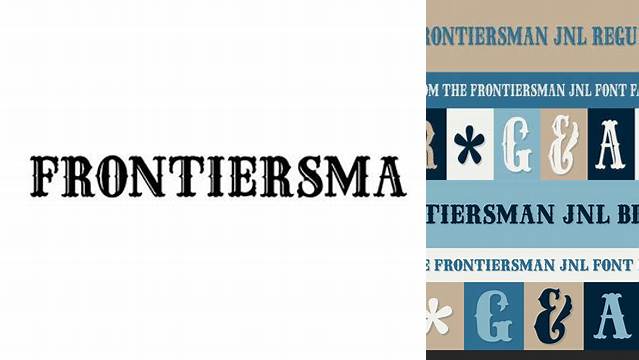
Alright, folks! Let's dive into the world of typography and get our hands on a fantastic font: the Frontiersman Font. This article is your ultimate guide to snagging a frontiersman font free download, plus a deep dive into what makes this font so awesome. We'll explore its history, its uses, and, of course, how to get it for free. So, buckle up, grab your favorite beverage, and let's get started!
H2: What Exactly is the Frontiersman Font?
So, what's the deal with the Frontiersman Font? In simple terms, it's a display font that beautifully captures the essence of the American West. Think rugged landscapes, historical signage, and that overall feeling of adventure and exploration. It's the kind of font that instantly evokes a sense of nostalgia and a connection to a bygone era. The Frontiersman Font is typically characterized by its bold, slightly distressed appearance, often featuring serifs that give it a weathered and textured look. These stylistic choices are intentional, as they aim to replicate the appearance of hand-painted signs, woodcuts, and other visual elements prevalent during the frontier days. This design aesthetic makes it an excellent choice for projects aiming to project a sense of history, authenticity, or a connection to nature. You can imagine it on a whiskey label, a vintage-style poster, or even a website that aims to capture the spirit of the wild west. The design also tends to feature slight variations in the letterforms. This is designed to mimic the inconsistencies of hand-drawn letters or the imperfections of aged printing methods. This is the magic of the Frontiersman Font! It's not just a font; it's a visual storytelling tool. The character of this font allows designers to not just communicate with words but also to set a certain mood and convey a specific message. Therefore, depending on your project, you might use it at different sizes, colors, or even layering effects to achieve the desired appearance. This font isn't about perfect lines and precise angles, it's about capturing the rough charm of a historical period.
H2: The Appeal and Characteristics of the Frontiersman Font Style
Let's talk about the allure of the Frontiersman Font style. Why is it so popular? Well, it taps into a primal desire for authenticity and a love for a specific aesthetic. The font design has distinct features that make it stand out. Usually, the font has bold, sturdy letterforms. This makes it eye-catching and readable, even at larger sizes. It also has a weathered or distressed appearance. This adds a sense of age and character. This is often achieved through subtle imperfections in the design, such as rough edges or textured surfaces. These small details give the font a hand-crafted feel. Another common characteristic is the inclusion of serifs. These small strokes at the end of the letters are a classic feature that adds a touch of elegance and tradition. The font's appeal lies in its ability to transport us back in time, connecting us with a period of exploration and courage. It's more than just a typeface; it's a statement. It tells a story. Its versatility is also part of its charm. While strongly associated with the Wild West theme, it can be adapted to various projects. The right color palette, combined with suitable images or graphics, can make it the perfect choice for a variety of creative endeavors, be it branding, marketing, or personal projects. The Frontiersman Font style is not simply a collection of letters; it's an experience. It invites us to embrace a sense of history, appreciate craftsmanship, and celebrate the spirit of adventure. The blend of boldness, detail, and nostalgia makes it an evergreen choice for creatives seeking to make a statement.
H3: Detailed Breakdown of the Font's Design Elements
To fully appreciate the Frontiersman Font, let's dissect its design elements. First, the boldness: the letters often have thick, sturdy strokes, giving them a solid and imposing presence. This thickness ensures readability, especially in headlines and display text. Second, the serifs: these small strokes at the end of each letter add a touch of classic design, reminiscent of old-school printing styles. Third, the distress effect: this gives the font a weathered, aged appearance, as if it were taken from an old sign or poster. This effect is created through small imperfections in the letterforms, adding texture and character. Fourth, the kerning and spacing: the way the letters are spaced affects the overall appearance of the font. In the Frontiersman Font, this is often adjusted to provide a balanced and visually appealing effect. Fifth, the character set: this may contain a full alphabet, numbers, punctuation marks, and possibly even special characters. The completeness of the character set influences its applicability to different projects. Sixth, the overall aesthetic: the font is designed to evoke a sense of history, adventure, and the ruggedness of the American West. All these elements work together to form a visual language. The design elements combined determine the font's utility and artistic worth. Every feature has been meticulously planned to bring to life a particular mood and convey a specific story. Understanding these elements allows a deeper appreciation of how the font functions as a powerful communication tool.